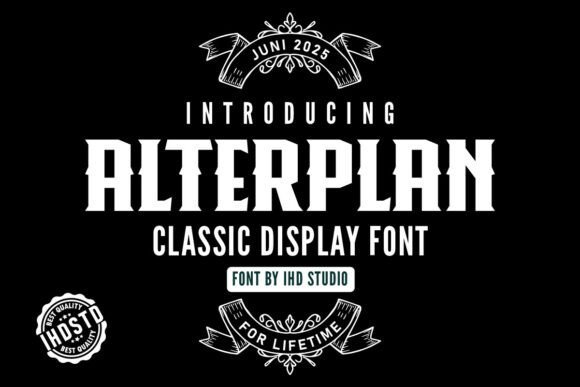
Introduction to Alterplan Font
Alterplan – Classic Display Font Alterplan is a bold and confident classic display font that blends vintage strength with a modern edge.
Featuring sharp angles and blocky character shapes, this font is perfect for projects that demand attention Whether you’re designing logos, posters, banners, or product packaging, Alterplan delivers a timeless look with a commanding presence.
Key Features of Alterplan Font
Why Choose Alterplan Font?
Alterplan Font offers exceptional quality and versatility, making it a valuable addition to your design toolkit. Whether you’re creating for personal projects or commercial use, Alterplan Font delivers professional results.